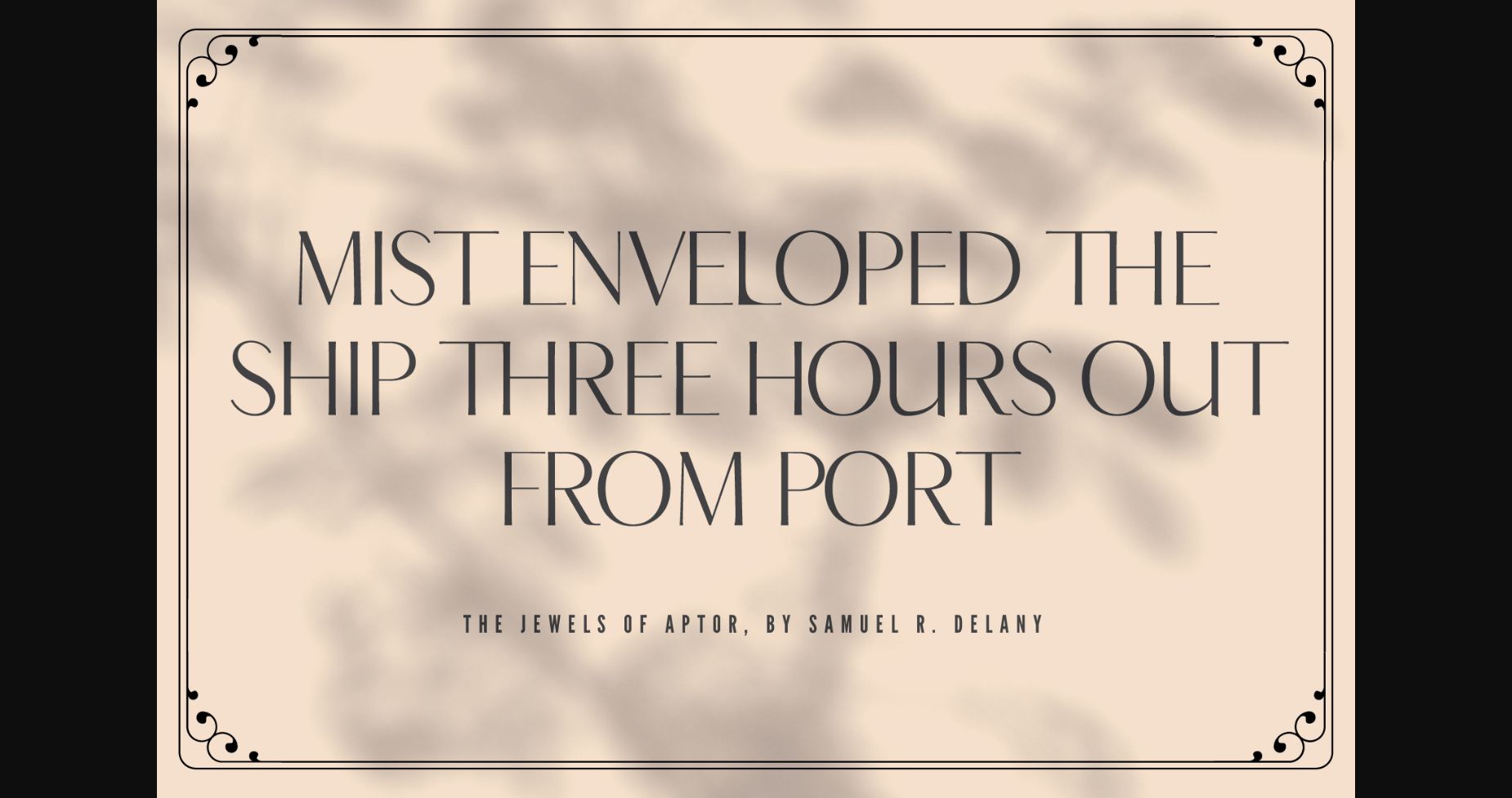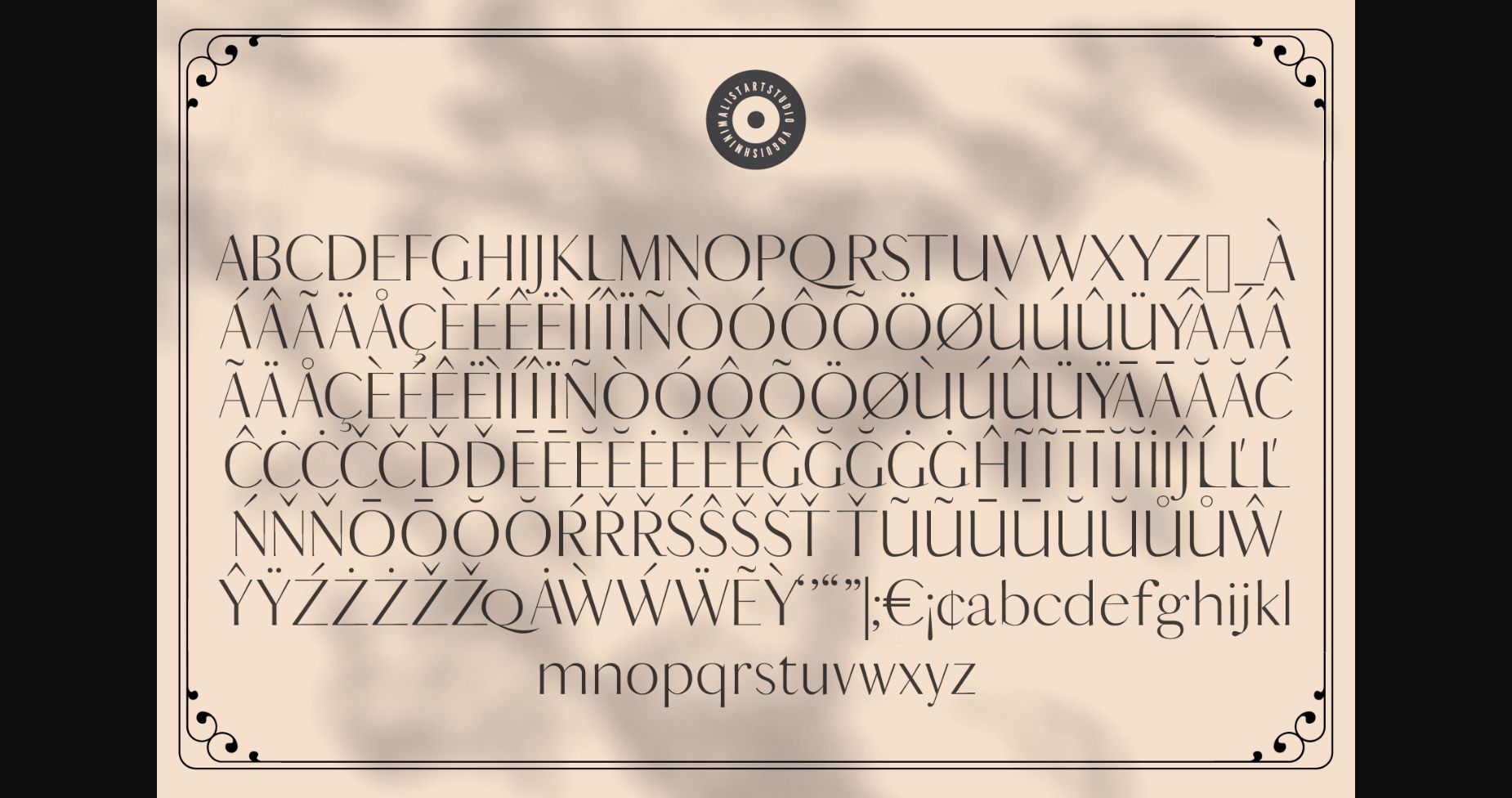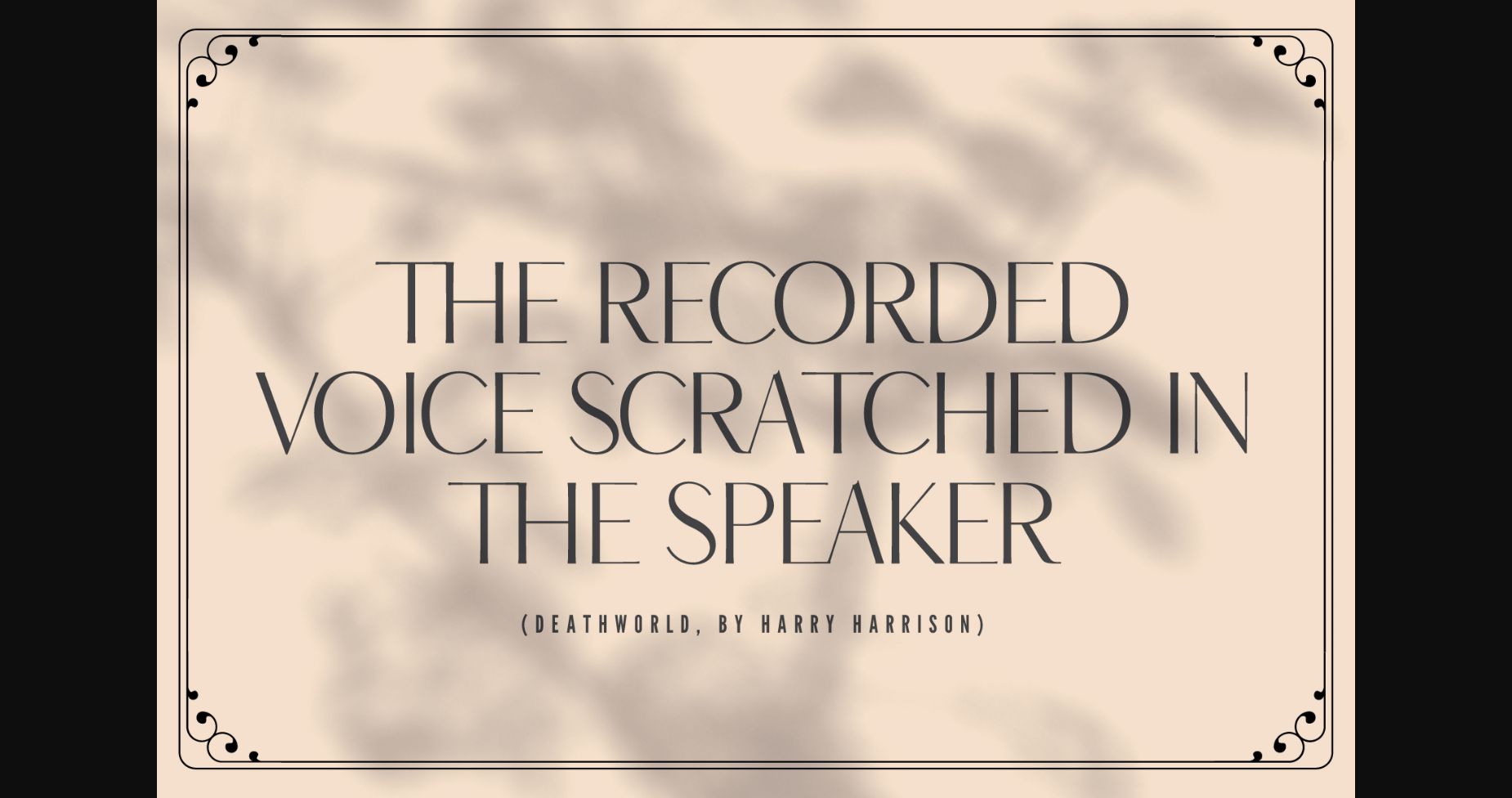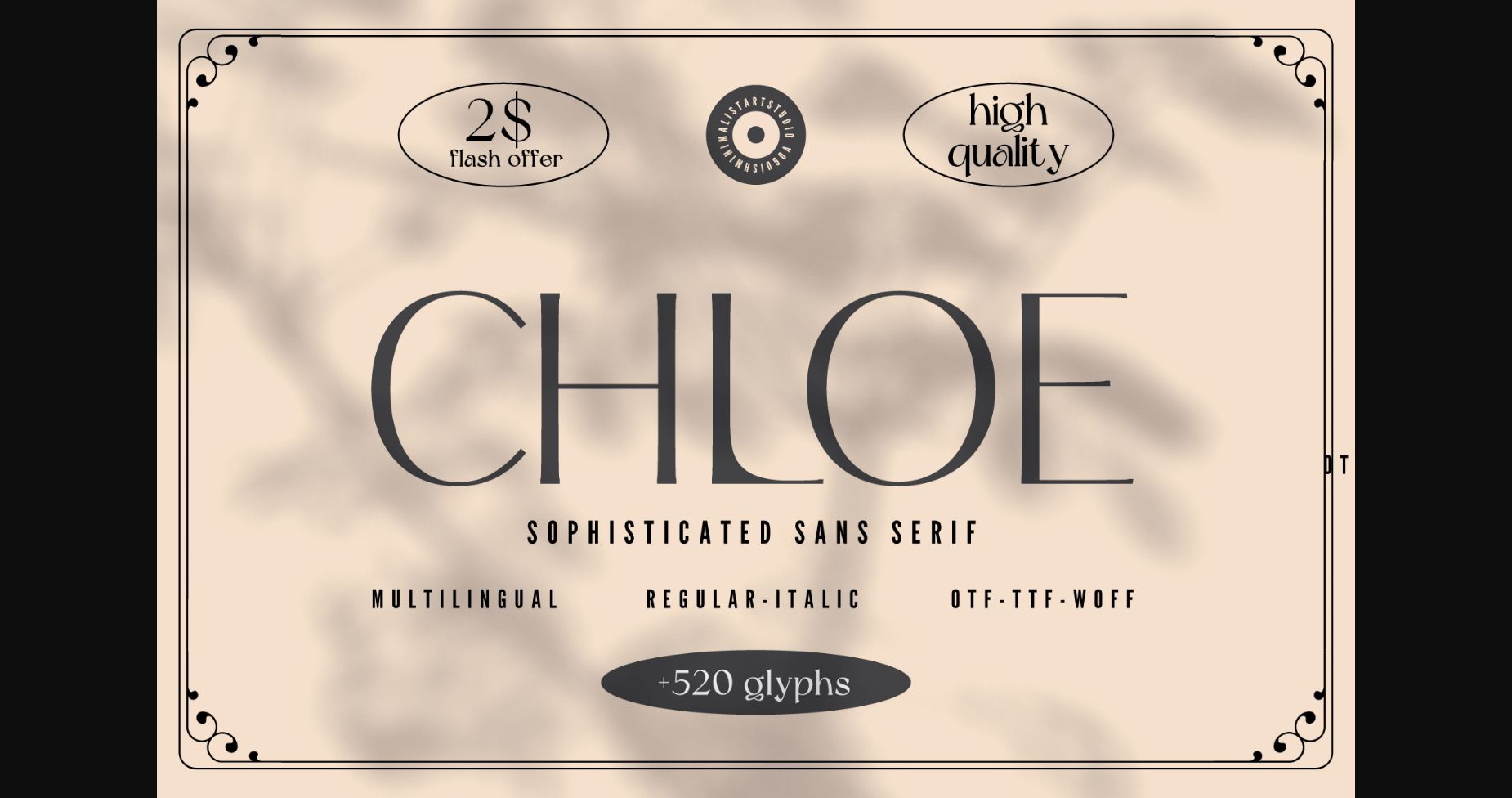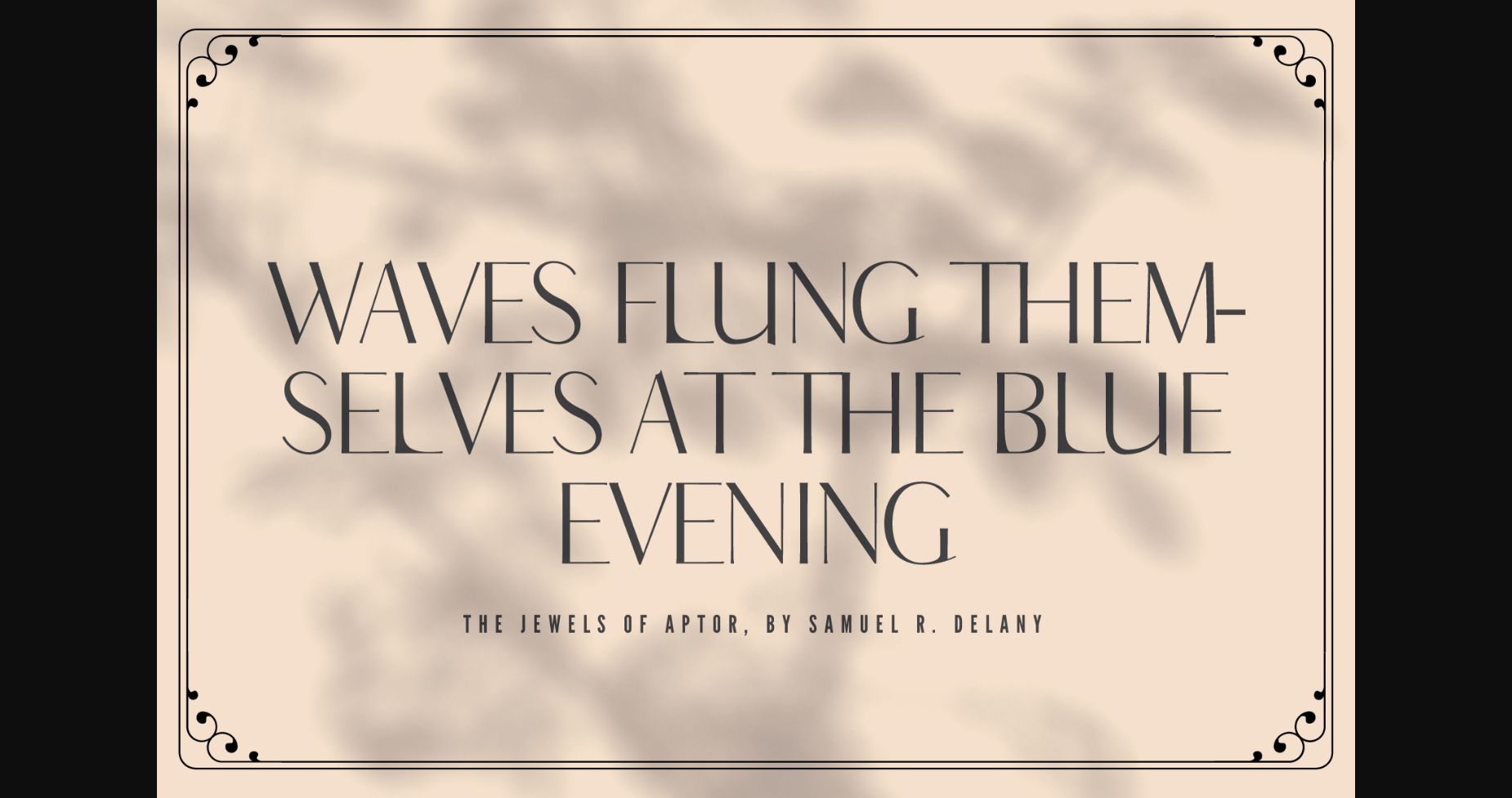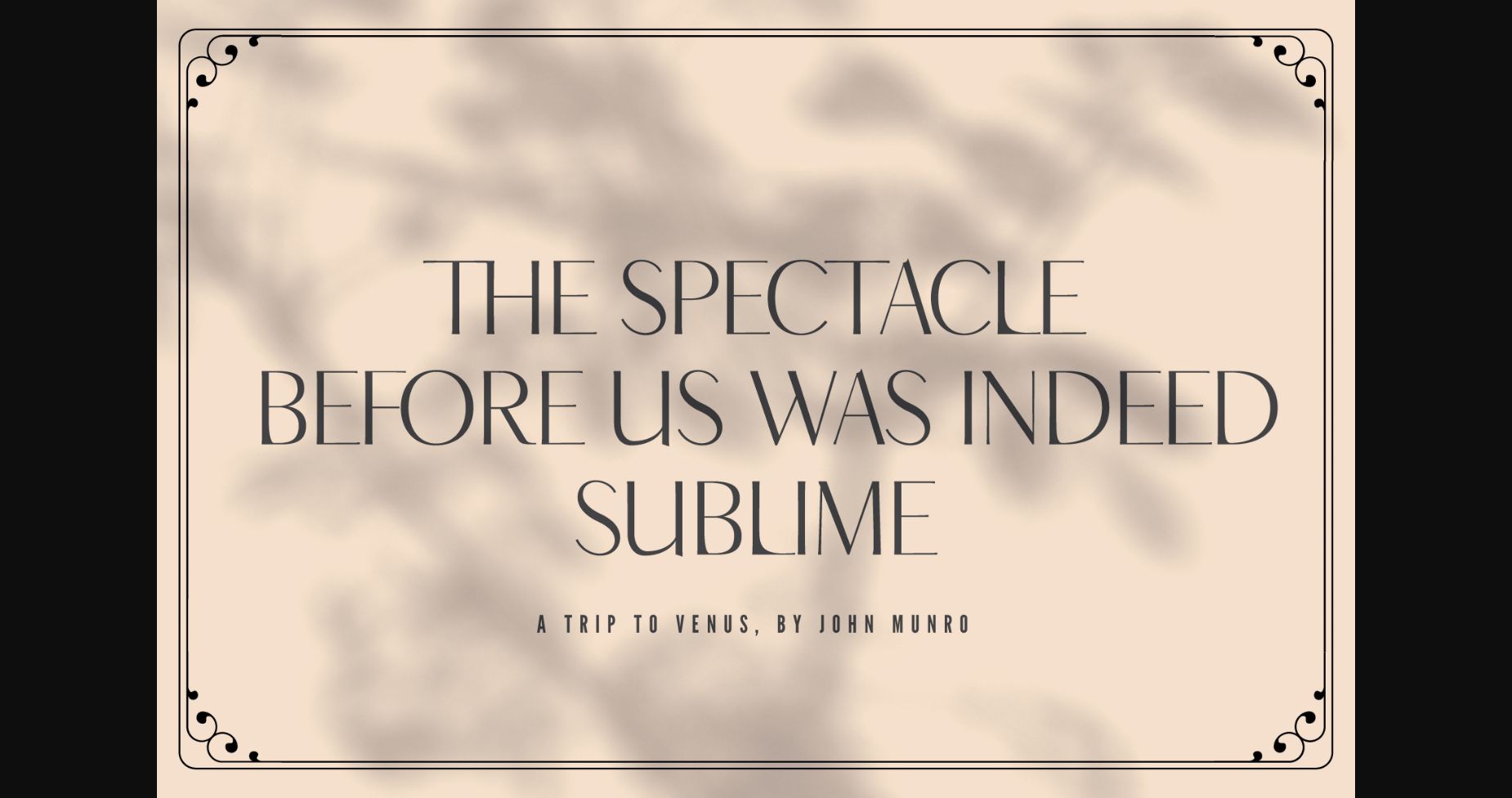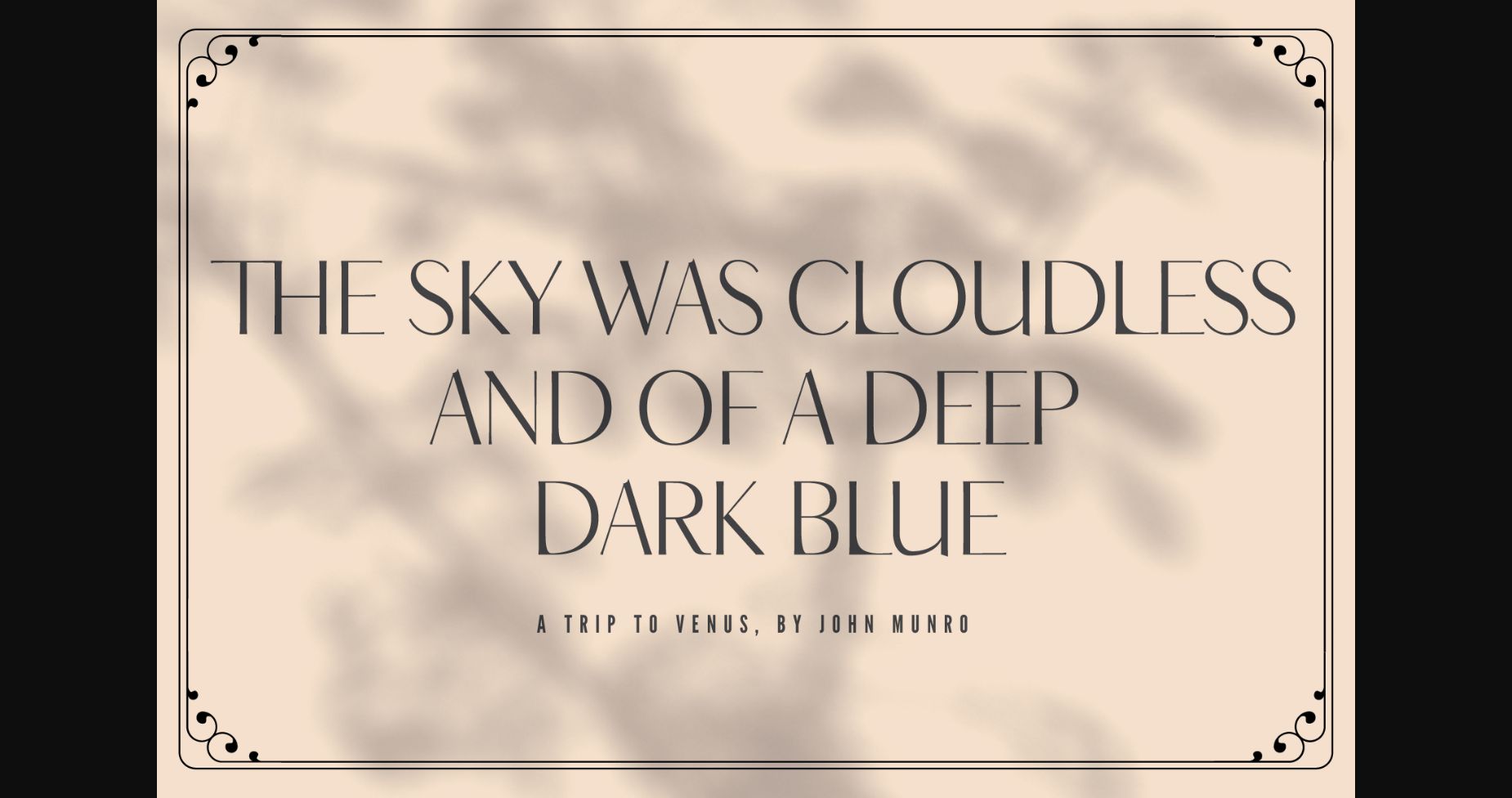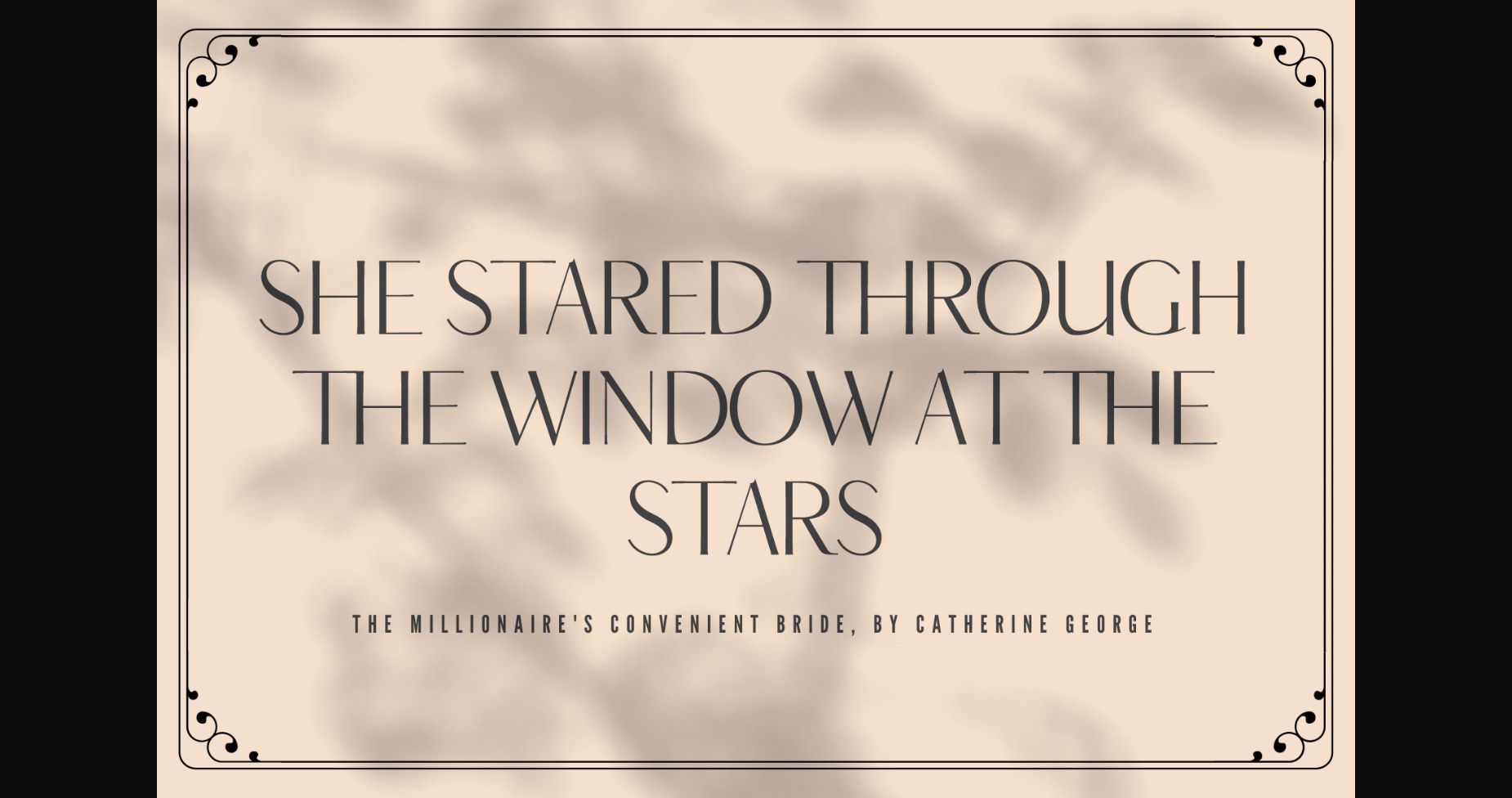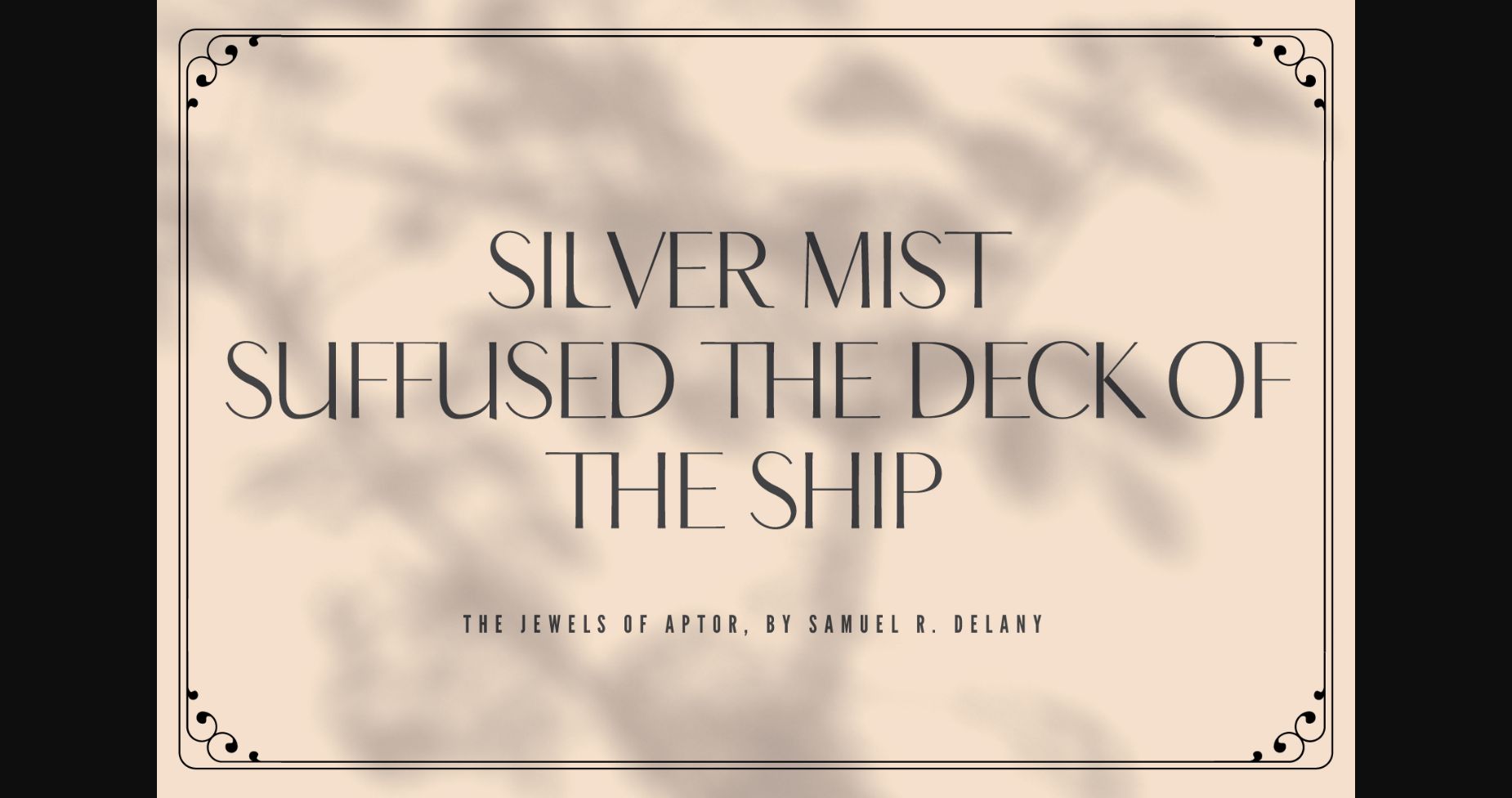
Chloe Font
About Chloe Font
Introducing Chloe, the epitome of elegance and sophistication in the world of typography. This minimalist and stylish sans serif font boasts over 520 meticulously crafted glyphs, each one contributing to its sleek and refined aesthetic.
With both italic and regular weights, Chloe offers versatility and flexibility for all your design needs. Whether it’s a logo, a website, or a branding project, Chloe’s timeless and graceful design will elevate any project.
The unique curves and angles of Chloe’s letters that hold inside the ”Serif” type properties create a sense of modernity and understated luxury, making it the perfect choice for high-end fashion brands, luxury products, and upscale services.
Experience the perfect balance of simplicity and sophistication with Chloe. Upgrade your design game today and give your projects the elegance they deserve.